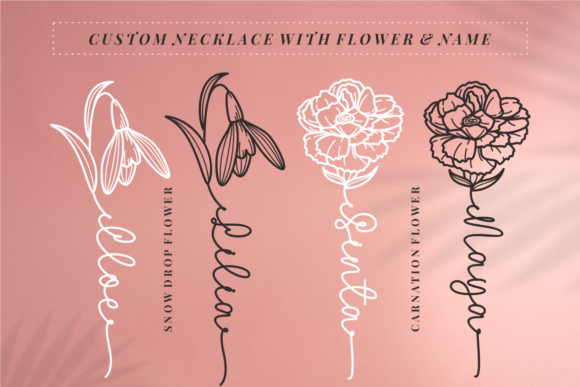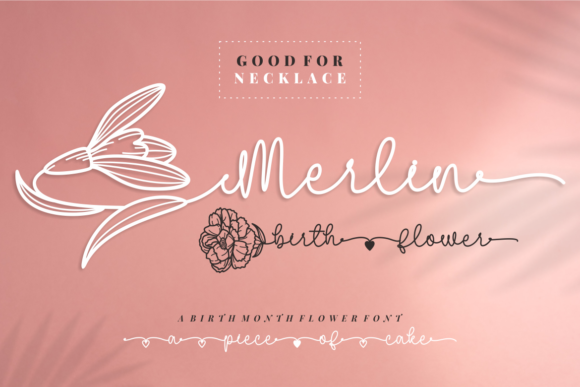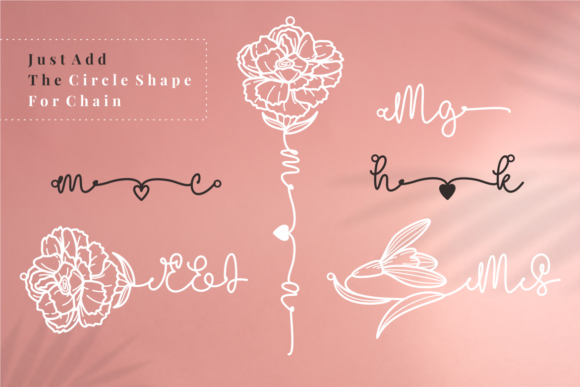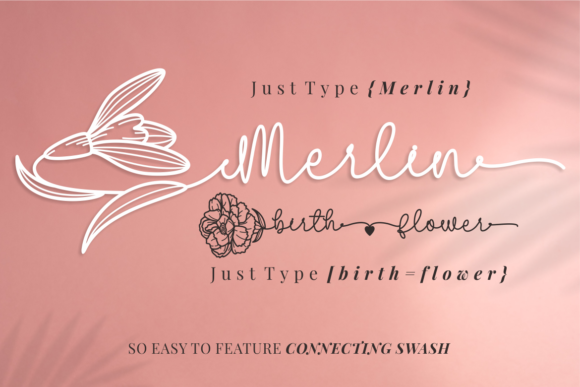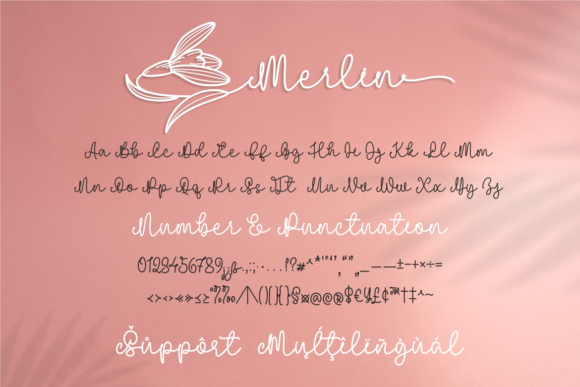
Introduction to Merlin Birth Flower Font
Have you ever stumbled upon a design that sparks your creativity and makes you want to dive in and create something amazing? That’s exactly what happened when I discovered the enchanting Merlin Birth Flower Font. This magical script font has a way of transporting you to a world of elegance and sophistication, making it the perfect addition to any creative project.
Key Features of Merlin Birth Flower Font
- Unique, elegant design inspired by the magical world of Merlin, perfect for creative projects and design resources.
- Comes in a single style, with 8 different weights and 8 special characters, adding a touch of magic to any design.
- Designed to work well with various font sizes and styles, making it an excellent choice for creative projects and design resources.
- Perfect for designers, artists, and writers looking for a unique and high-quality font to enhance their creative projects.
Honest Review: Merlin Birth Flower Font
As a designer, I’m always on the lookout for high-quality design resources to elevate my creative projects. The Merlin Birth Flower Font caught my eye, and I decided to give it a try.
Here are some things that work well: ✨ The font has a unique and whimsical design that’s perfect for projects that need a touch of magic. It’s also available for free download, which is always a bonus. The transparent background makes it easy to use on any design background. Plus, the font is highly customizable, which is great for designers who like to experiment with different styles.
Here are some limitations: ⚠️ While the font is high quality, it’s not suitable for formal or professional projects. It’s more geared towards creative and playful designs. Additionally, the font may not be compatible with all design software, so be sure to check the system requirements before downloading.
Overall, I’m impressed with the Merlin Birth Flower Font. It’s a great addition to any designer’s toolkit, especially for those working on projects that need a touch of whimsy. With its unique design and high-quality execution, it’s definitely worth checking out.
- Unique and whimsical design
- Not suitable for formal or professional projects
The Merlin Birth Flower Font is perfect for various creative projects, such as birthday invitations, party decorations, and gift tags. You can also use the font to create custom graphics, logos, and branding materials. With the font’s high quality and transparent background, you can easily integrate it into your design project.
To get the most out of the Merlin Birth Flower Font, use it in conjunction with other design elements, such as images and shapes. Experiment with different font sizes, colors, and styles to create a unique and visually appealing design. You can also use the font in combination with other design resources to create a cohesive and professional look.